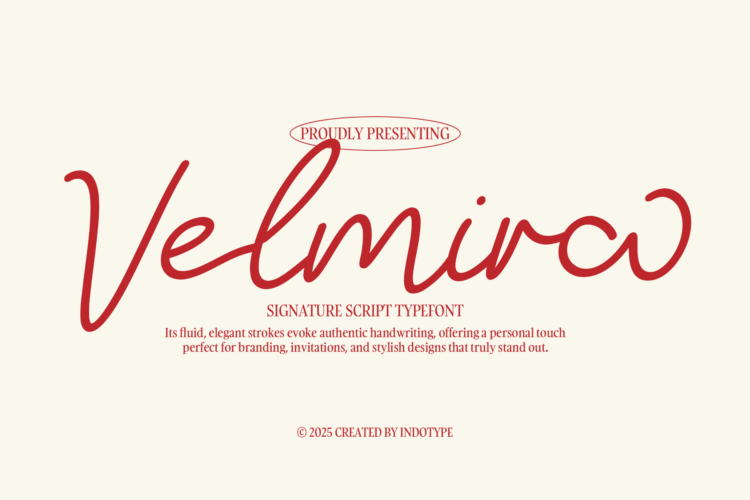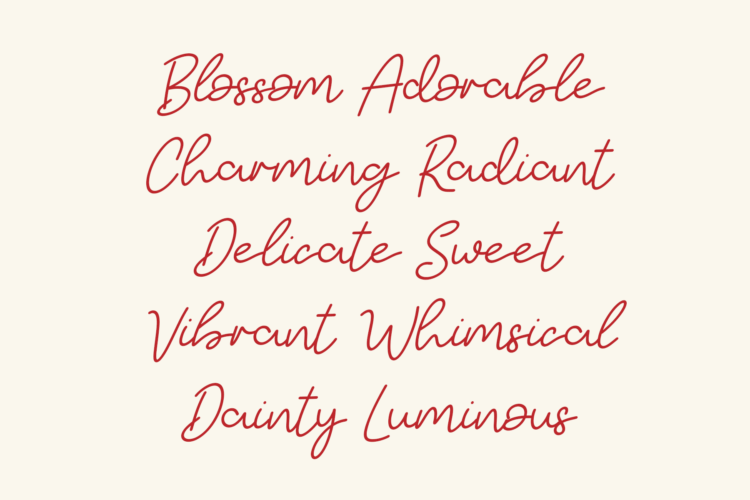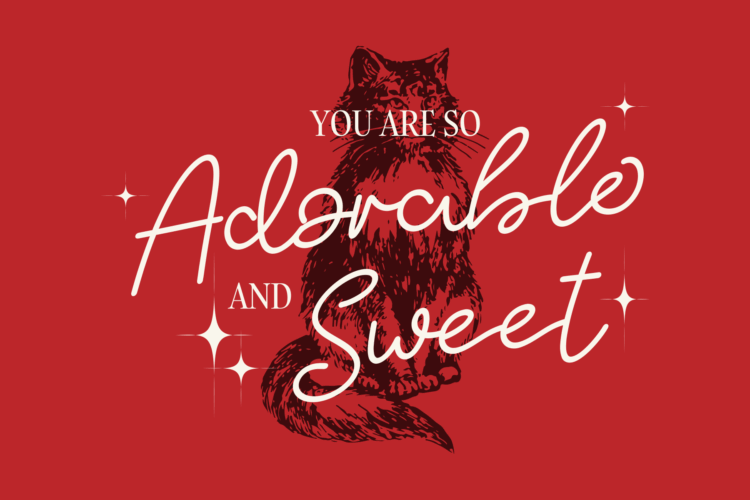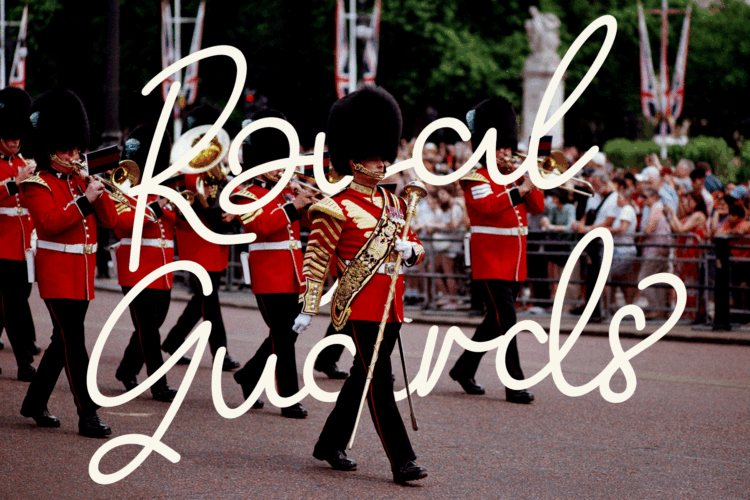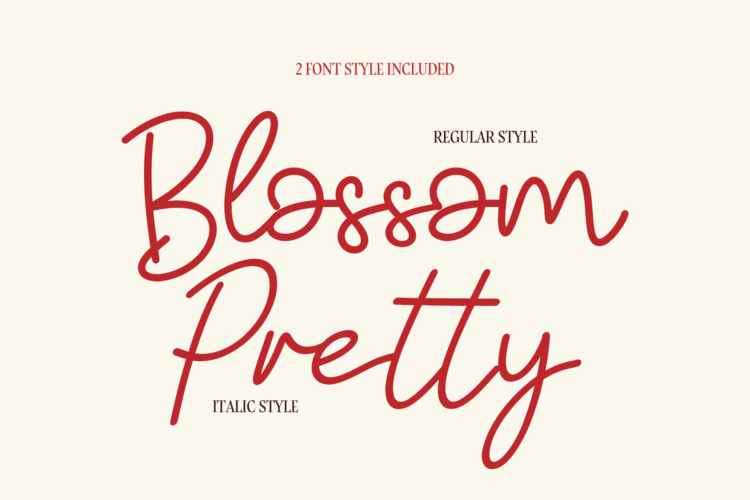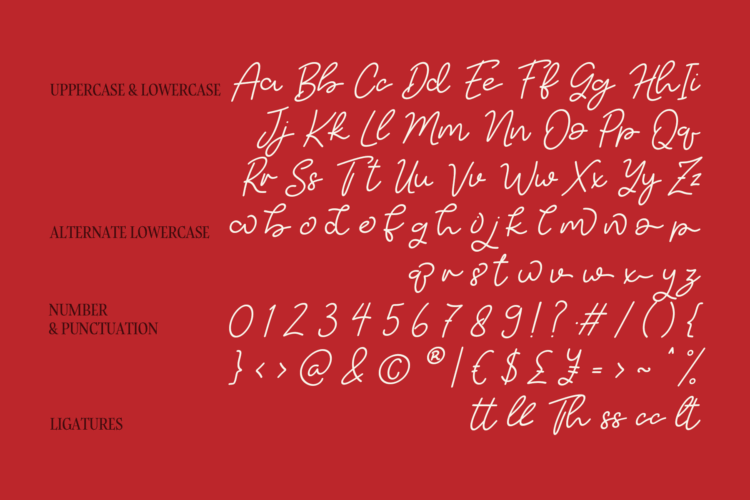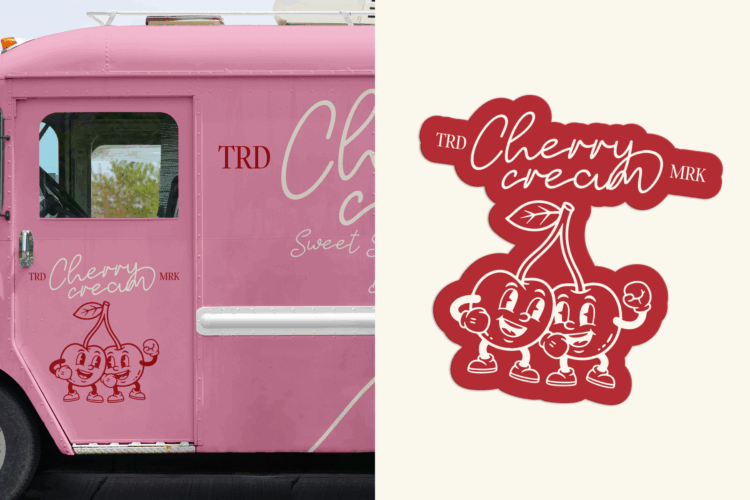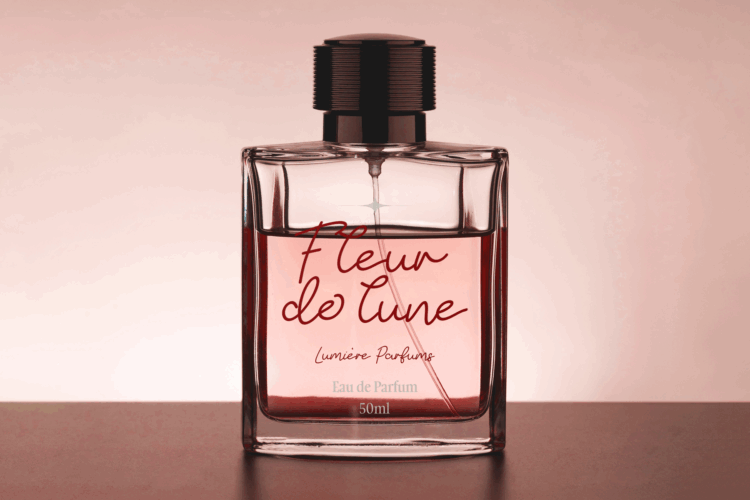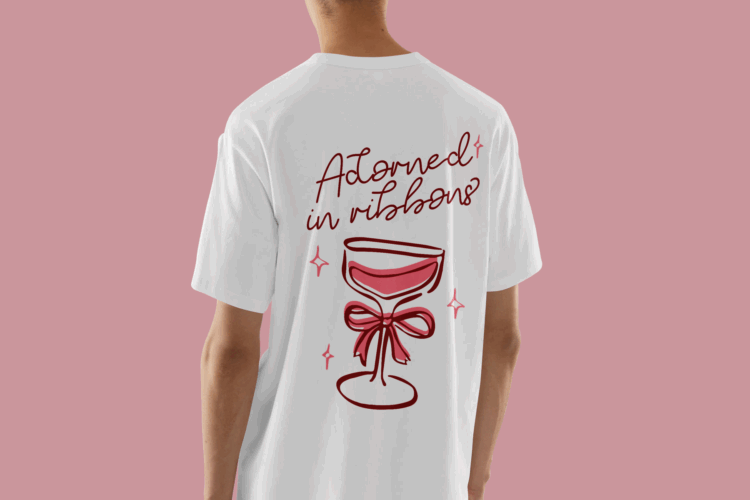
Velmira is a refined signature script typeface designed to bring the beauty of authentic handwriting into your creative projects. With its smooth, fluid strokes and graceful curves, Velmira combines elegance with a personal touch, making it an ideal choice for designs that demand sophistication and individuality.
This versatile script is perfect for branding, logos, wedding invitations, stationery, social media graphics, and packaging. Its natural rhythm and flowing letterforms add warmth and charm, while maintaining excellent readability across both digital and print applications.
Velmira transforms ordinary text into a stylish statement, allowing your designs to truly stand out. Whether you are creating high-end branding or heartfelt invitations, Velmira offers the perfect balance of authenticity, modern flair, and timeless handwritten beauty.